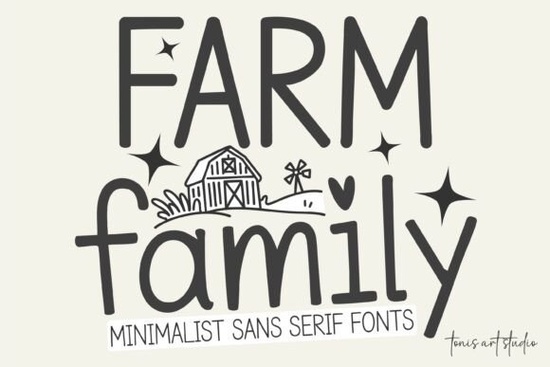
If you're creating rustic signs, cozy home décor, or seasonal printables, the Farm Family Bundle Font offers a clean yet warm typographic foundation that feels both modern and timeless. Designed with soft, circular strokes and an open, friendly structure, it brings a handcrafted touch to everything from wooden wall art to holiday greeting cards without sacrificing legibility or style.
What makes this font especially useful for crafters and small businesses is its five distinct weights: Regular, Lite, Bold, Line, and Outline. Each variation serves a different purpose. Use Bold for eye-catching headlines on market stall signage, Lite for subtle journaling or recipe cards, and the Outline or Line styles for layered designs in Cricut or Silhouette projects. The consistency across styles means you can mix and match without clashing aesthetics.
Why does this font work so well for farmhouse-style crafts?
The charm of the Farm Family Bundle lies in its balance. It’s not overly distressed like some rustic fonts, nor is it too sterile like standard sans serifs. Instead, it leans into minimalist design while keeping a gentle, approachable personality ideal for family monograms, baby announcements, or even coffee mug quotes that feel personal and inviting.
For example, if you’re designing a “Gather” sign for fall or a “Joy” plaque for Christmas, the rounded terminals and even spacing help your words feel welcoming rather than stark. This readability also translates well to smaller formats like gift tags or printable labels, where clarity matters just as much as mood.
How does it compare to other script and display fonts?
While many popular fonts lean heavily into cursive or ornate detailing like Mistle Kiss with its delicate holiday swirls or Birdie Bash’s playful bounce the Farm Family Bundle stays grounded in simplicity. It’s not a script font, but its warmth often pairs beautifully with softer scripts when layered thoughtfully.
If you’ve ever used Disney-inspired fonts for whimsical kids’ projects, you’ll appreciate how Farm Family offers a more neutral, versatile alternative for everyday home goods. And unlike some novelty typefaces, it scales cleanly from large vinyl decals to tiny embroidery patterns.
What kinds of projects is it best suited for?
This font shines in any context where “cozy,” “authentic,” or “handmade” are part of the vibe. Think:
- Seasonal décor: Christmas stockings, Thanksgiving table runners, spring welcome signs
- Print-on-demand items: T-shirts with short phrases (“Home Grown,” “Simple Joy”), mugs, tote bags
- Personalized gifts: Family name plaques, nursery wall art, wedding seating charts
- Digital printables: Planners, recipe cards, SVG bundles for crafters
Because all five styles share the same underlying proportions, switching between them maintains visual harmony critical when you’re building a product line or branding a small shop around a consistent aesthetic.
Quick checklist before you start designing
- ✅ Pair with a complementary script (like Mistle Kiss for holidays) for contrast
- ✅ Use consistent spacing; the font’s open design benefits from generous letter-spacing in headlines
If you create handmade goods, run a small Etsy shop, or simply love crafting personalized home accents, this bundle gives you professional-looking results without requiring advanced typography skills. Its quiet charm works harder than flashier fonts ever could because sometimes, the most memorable designs are the ones that feel like they belong right where they are.